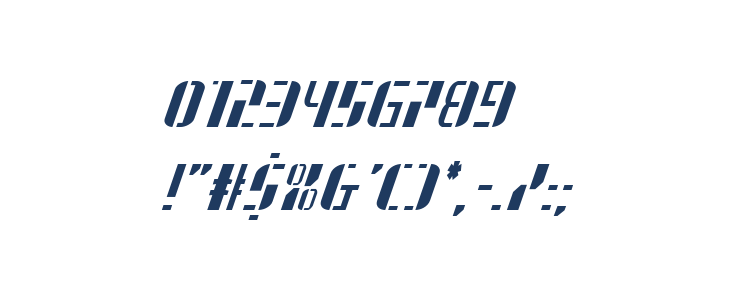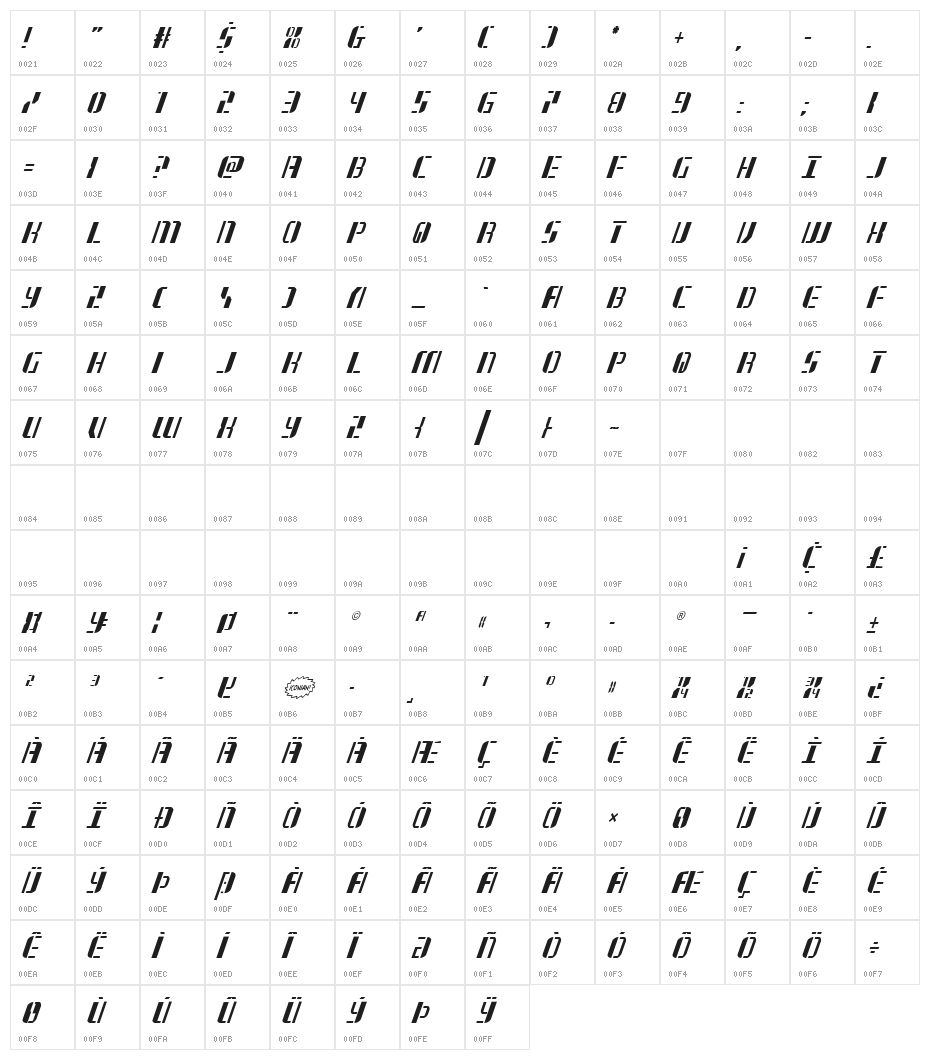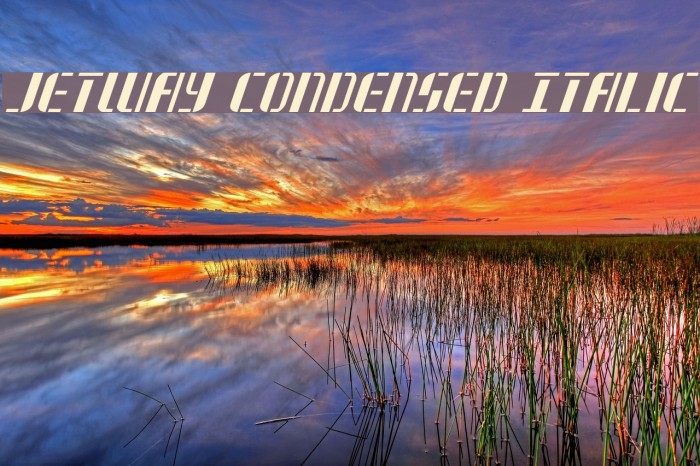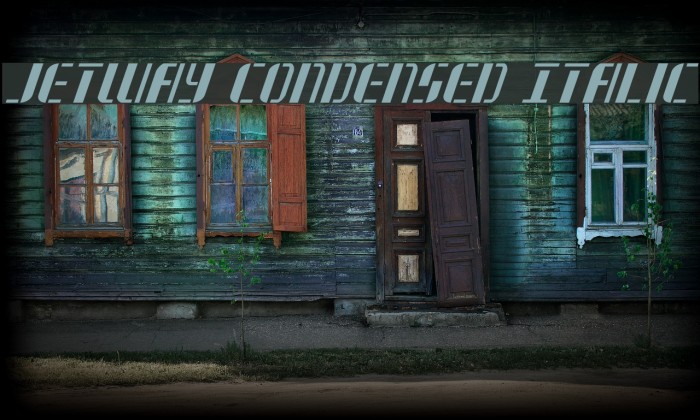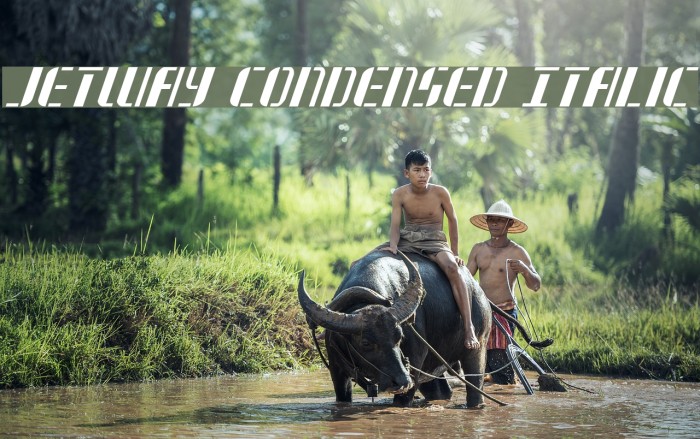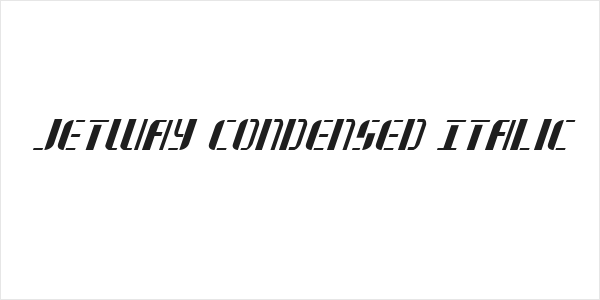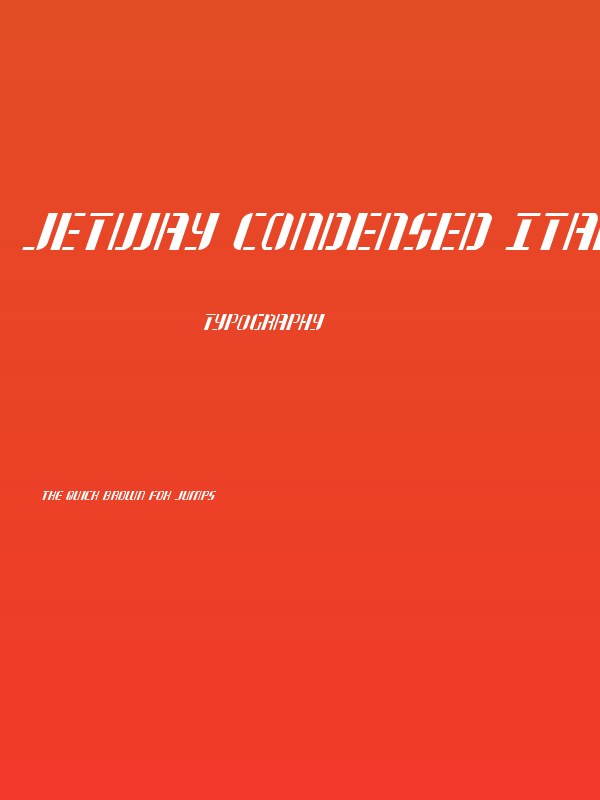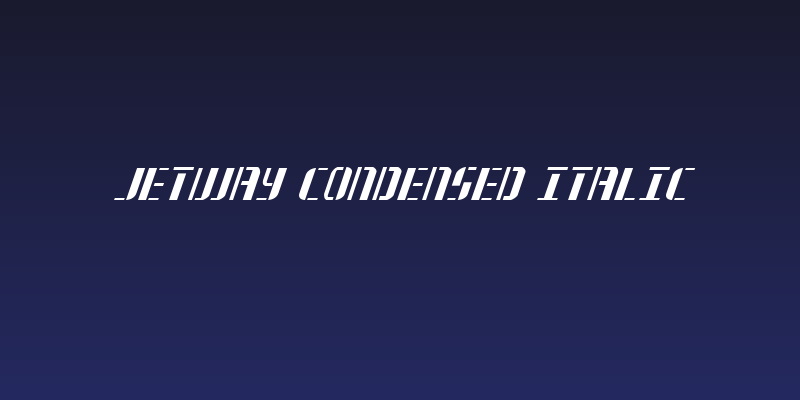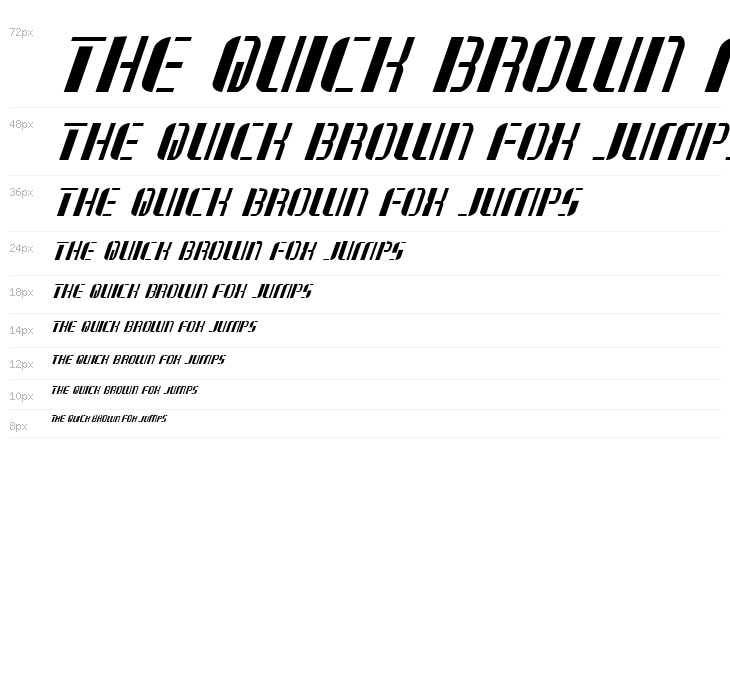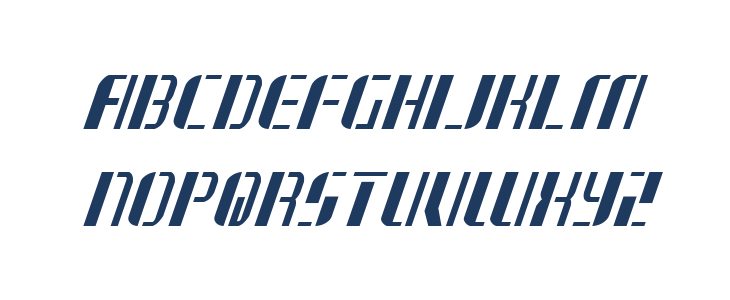
This font features a dynamic and modern design with a strong italic slant, giving it a sense of movement and speed. The characters are condensed, which enhances its sleek and streamlined appearance. The strokes are bold, with a consistent thickness that provides a uniform look across all characters. The angular cuts and sharp edges contribute to its futuristic and edgy style, making it stand out in any design. The font maintains a tight character spacing, which adds to its compact and efficient look. It is well-suited for projects that require a bold and impactful visual statement.
| Use Case | Logos, Headlines, Branding |
| Proposed Projects | Ideal for branding, sports team logos, automotive designs, and tech-related projects. |